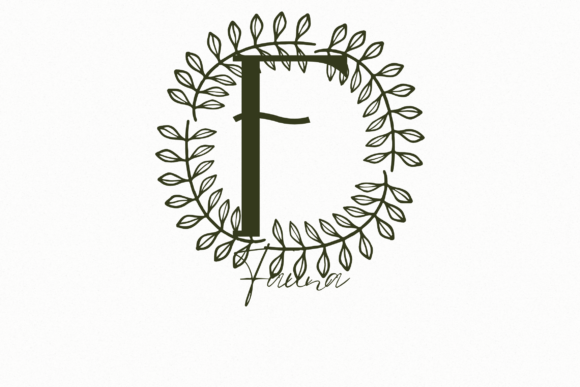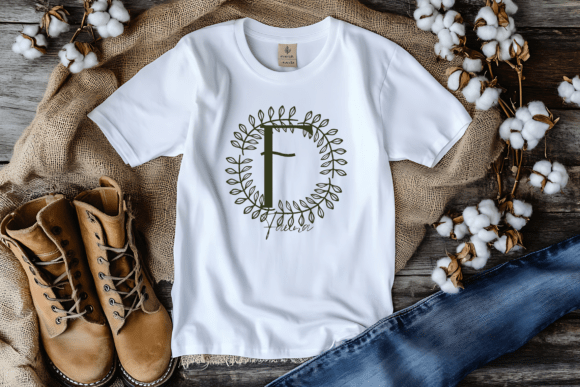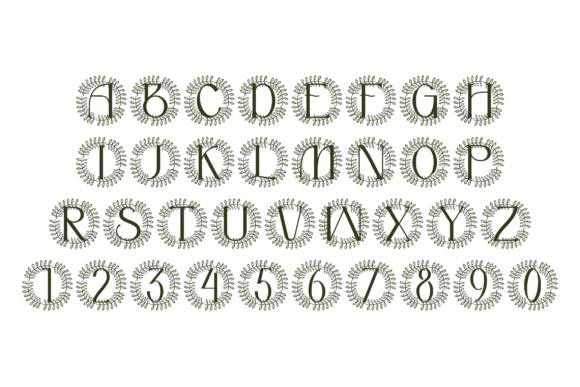
Introduction to Novara Monogram Font
Novara Monogram is a modern serif monogram font shaped for clean elegance and high readability.
📌 Product Name Novara Monogram Font
👤 Author Sharon ( DmStudio )
Each uppercase letter is carefully proportioned with sculpted serifs, open counters, and confident spacing, so initials look crisp in print, on screen, and when cut or engraved Use Novara for wedding suites, boutique branding, packaging, keepsakes, vinyl decals, embroidery, laser engraving, and Cricut crafts that need a refined, contemporary touch.
Key Features of Novara Monogram Font
Why Choose Novara Monogram Font?